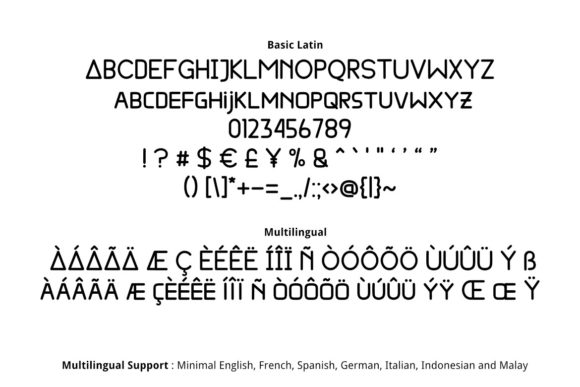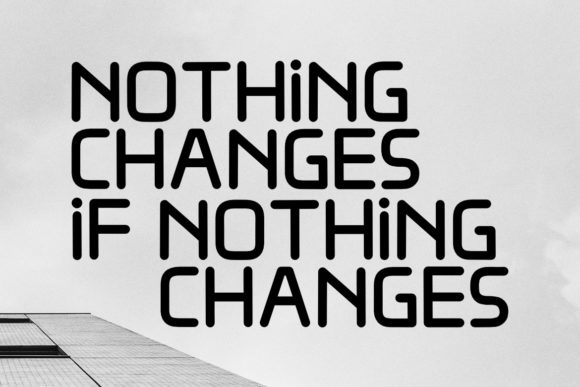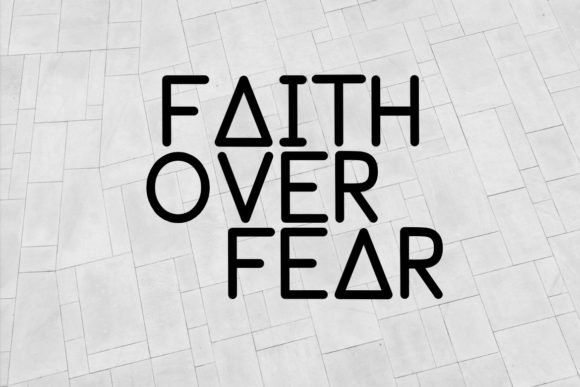
Introducing Ballista Font: The Ultimate Sans Serif for Creative Projects
In the world of design, typography plays a crucial role in conveying messages, expressing ideas, and creating visual identities. For designers and crafters, finding the perfect font can be a daunting task, especially when it comes to creating outstanding designs. This is where Ballista Font comes in – a simple, modern sans serif font that is suitable for a wide range of creative projects. In this article, we’ll dive into the features, benefits, and uses of Ballista Font, and explore how it can elevate your designs to the next level.
What is Ballista Font?
Ballista Font is a sleek and contemporary sans serif font designed to make a statement. Its clean lines, rounded edges, and balanced proportions make it perfect for use in quotes, logos, headings, titles, and more. Whether you’re working on a branding project, creating a social media graphic, or designing a website, Ballista Font is an excellent choice.
Key Features of Ballista Font
- Simple and Modern Design: Ballista Font boasts a minimalist aesthetic that is both elegant and sophisticated.
- Sans Serif: The font’s sans serif design ensures that your text remains clear and legible, even at small sizes.
- Versatile: Ballista Font can be used for a wide range of creative projects, from logos and headings to quotes and titles.
- Easily Readable: The font’s balanced proportions and rounded edges make it easy to read, even on digital screens.
Benefits of Using Ballista Font
So, why choose Ballista Font for your creative projects? Here are just a few benefits:
- Stand Out from the Crowd: With Ballista Font, you can create designs that are truly unique and eye-catching.
- Enhance Your Brand Identity: The font’s modern design and versatility make it perfect for creating a strong brand identity.
- Save Time: Ballista Font is easy to use and works seamlessly across different platforms and devices.
- Unlimited Creative Possibilities: Whether you’re designing a logo, website, or social media graphic, Ballista Font offers endless creative possibilities.
How to Use Ballista Font in Your Creative Projects
Using Ballista Font in your creative projects is easy. Here are a few ideas to get you started:
- Logos and Branding: Use Ballista Font to create a modern and memorable logo that represents your brand.
- Headings and Titles: Add a touch of elegance to your headings and titles with Ballista Font.
- Quotes and Captions: Use Ballista Font to add a creative and stylish touch to your quotes and captions.
- Web Design: Ballista Font works seamlessly on digital screens, making it perfect for web design projects.
Tips and Tricks for Getting the Most Out of Ballista Font
To get the most out of Ballista Font, here are a few tips and tricks:
- Experiment with Different Sizes: Ballista Font looks great at a range of sizes, from small and delicate to large and bold.
- Play with Color: The font’s simple design makes it easy to pair with a wide range of colors and textures.
- Combine with Other Fonts: Ballista Font works well on its own or paired with other fonts to create a unique and eye-catching design.
In conclusion, Ballista Font is a versatile and modern sans serif font that is perfect for creative projects. Its simple design, versatility, and readability make it an excellent choice for designers and crafters. Whether you’re creating a logo, website, or social media graphic, Ballista Font is sure to elevate your designs to the next level. So why wait? Download Ballista Font today and start creating outstanding designs that leave a lasting impression!